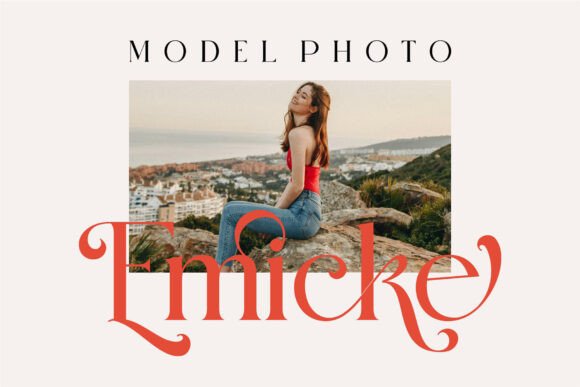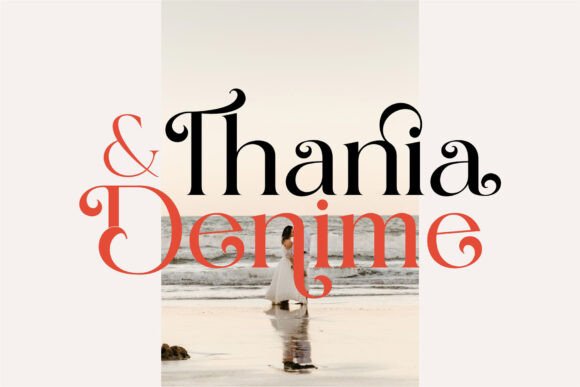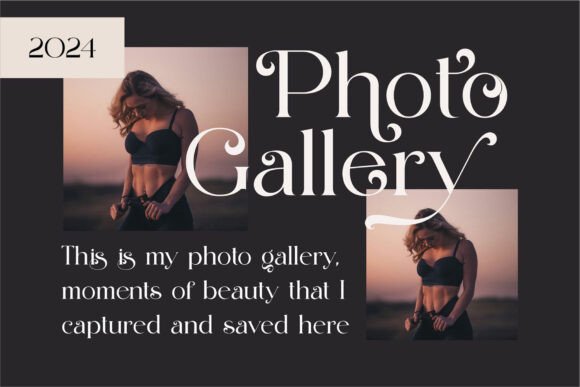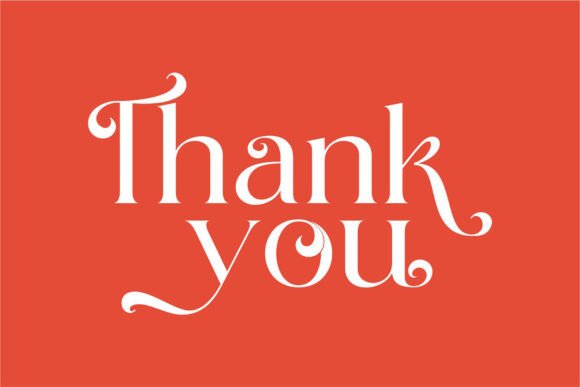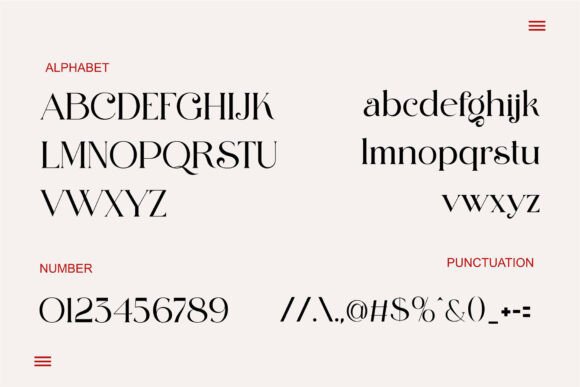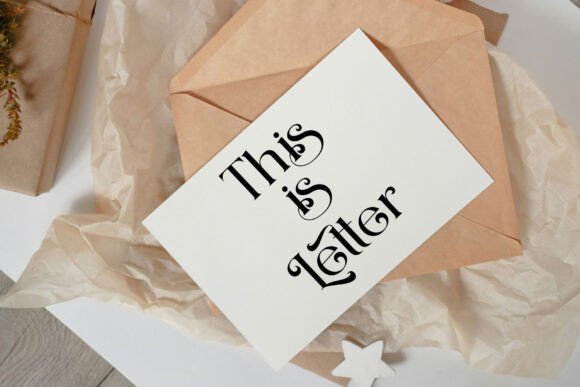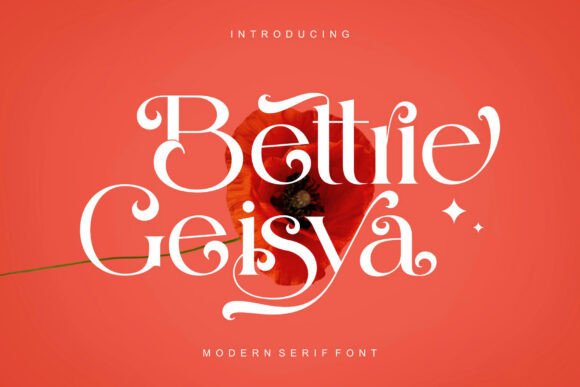
Introducing BettrieGeisya: Elevate Your Designs with Luxurious Elegance
In the world of typography, a font can make or break the aesthetic of a design project. For those seeking to infuse their creations with a touch of luxury and sophistication, look no further than BettrieGeisya, a stunning serif typeface that exudes elegance and refinement. With its clean lines, elegant curves, and unique character, BettrieGeisya is poised to become the go-to choice for designers and crafters aiming to elevate their work to new heights of class and style.
The Essence of BettrieGeisya
BettrieGeisya is more than just a font; it’s a statement of luxury and poise. Its serif design, characterized by small lines or flourishes at the ends of the strokes, gives it a traditional and classic look that is instantly recognizable. However, what sets BettrieGeisya apart is its modern twist – clean lines that provide clarity and elegance, making it versatile for a wide range of applications. Whether you’re working on luxury-themed projects, fashion magazines, high-end branding, editorial design, or luxurious invitations, BettrieGeisya brings a level of sophistication that is hard to match.
Unleash Your Creativity with BettrieGeisya
One of the key benefits of using BettrieGeisya is its ability to transform any design project with its unique and classy look. The font’s elegant curves add a soft, approachable feel, balancing out the formality of the serif structure. This blend of traditional and contemporary elements makes BettrieGeisya incredibly versatile, capable of fitting into a variety of design contexts while maintaining a luxurious feel.
Applications of BettrieGeisya
BettrieGeisya’s luxury and elegance make it ideally suited for several high-end applications:
- Luxury Themes Projects: Add a touch of class to your luxury goods or service branding with a font that screams opulence and refinement.
- Fashion Magazines: Stand out in the competitive world of fashion publishing with a font that embodies style and sophistication.
- High-End Branding: Elevate your brand’s image with a typeface that communicates luxury, quality, and exclusivity.
- Editorial Design: Bring a level of elegance to your editorial projects, whether it’s a high-end lifestyle magazine or a bespoke publication.
- Luxurious Invitations: Make your invitations unforgettable with a font that conveys luxury and exclusivity.
Why Choose BettrieGeisya?
Choosing BettrieGeisya for your design projects comes with several advantages:
- Unique Aesthetic: Stand out from the crowd with a font that offers a fresh take on traditional serif typography.
- Versatility: Use BettrieGeisya across various platforms and design applications, from digital interfaces to print materials.
- Elegance: Instantly elevate the sophistication and perceived value of your designs.
- Legibility: Despite its elegant and luxurious feel, BettrieGeisya maintains high legibility, making it practical for both headings and body text.
BettrieGeisya is not just a font; it’s a design statement that speaks of luxury, elegance, and refinement. Its unique blend of traditional serif elements with modern clean lines and elegant curves makes it an invaluable asset for designers and crafters looking to imbue their projects with a classy look. Whether you’re aiming to create a high-end brand identity, a luxurious invitation, or simply want to add a touch of sophistication to your editorial design, BettrieGeisya is the perfect choice. Elevate your designs to new heights of luxury and elegance with BettrieGeisya, and make a lasting impression on your audience.